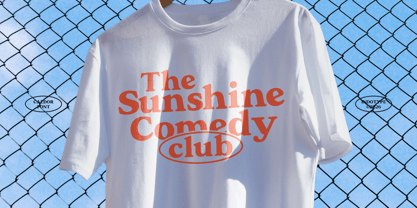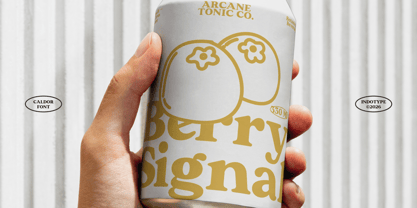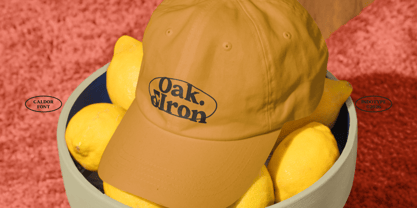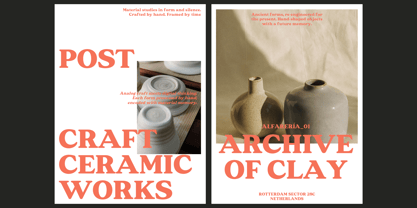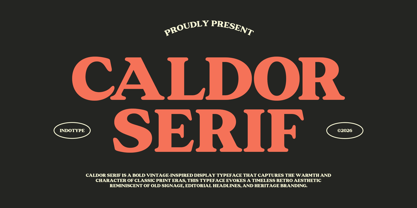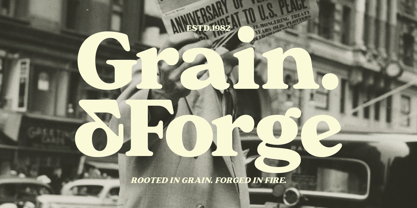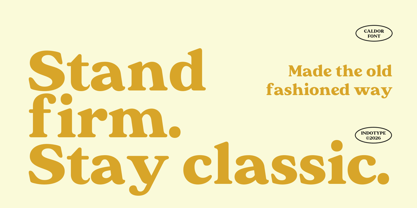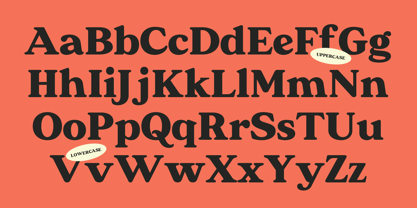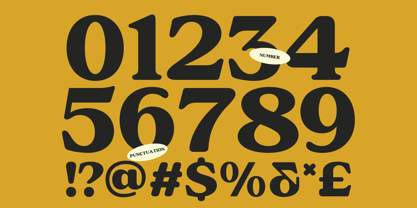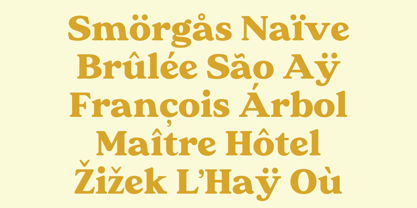
IT Caldor
by Indotype
The IT Caldor Font Family was designed by Dede Kurniawan and published by Indotype. IT Caldor contains 2 styles and family package options. More about this family
Caldor Serif is a bold vintage-inspired display typeface that captures the warmth and character of classic print eras. Drawing from the rich visual heritage of mid-century editorial typography, old signage lettering, and heritage brand design, Caldor evokes a timeless retro aesthetic that feels simultaneously rooted in history and entirely relevant to contemporary design. This is a typeface that carries weight in every sense — visually massive, culturally resonant, and emotionally immediate. Caldor doesn't simply set text; it sets the tone for everything around it. Design Characteristics Caldor Serif is defined by its extraordinary visual mass and the particular warmth it generates through the combination of high stroke weight and generously bracketed serifs. Unlike the cold precision of Didone or Rational serif traditions, Caldor belongs to a more humanist lineage — one where the serifs curve naturally into the stems with smooth, full brackets that soften the letterforms and give them a tactile, almost physical presence. These are letters that feel hewn rather than drawn, built rather than refined.